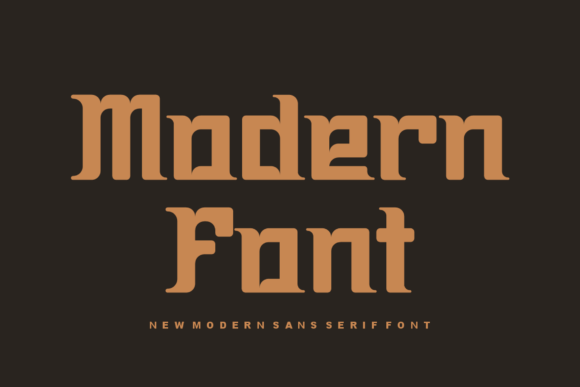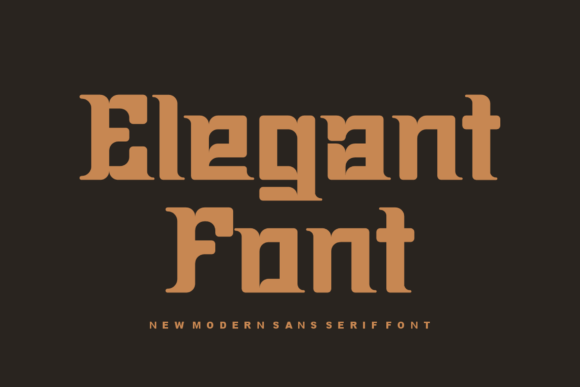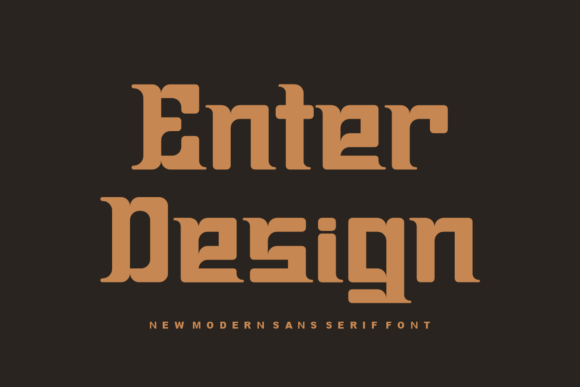
Introduction to Power Rolland Font
Power Rolland is a bold and authentic slab serif font.
The font is suitable for any branding project like logo, t-shirt printing, export, and many more It looks outstanding in a wide range of contexts.